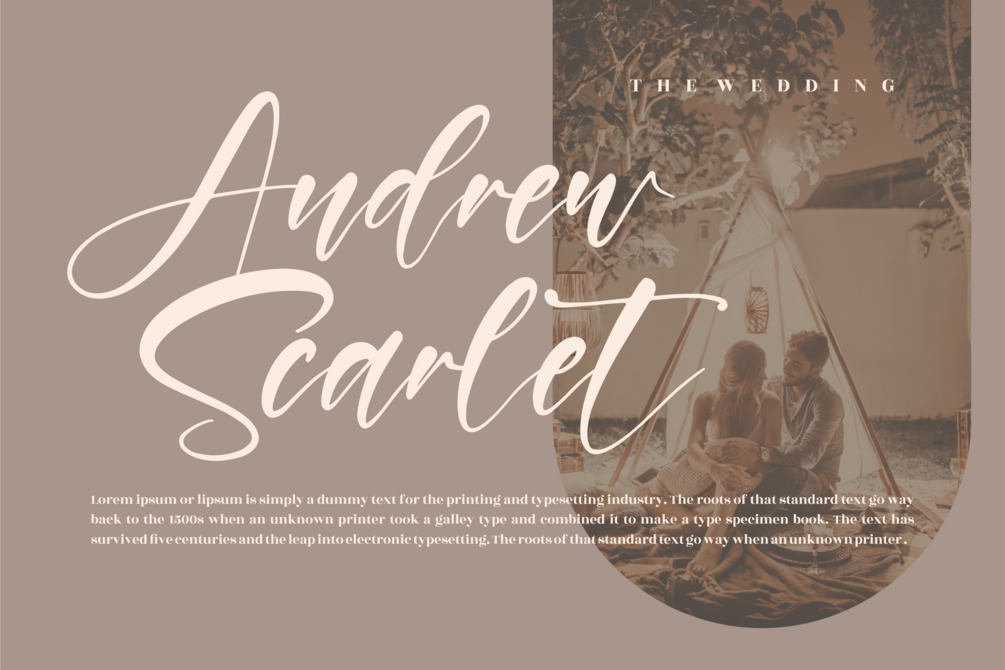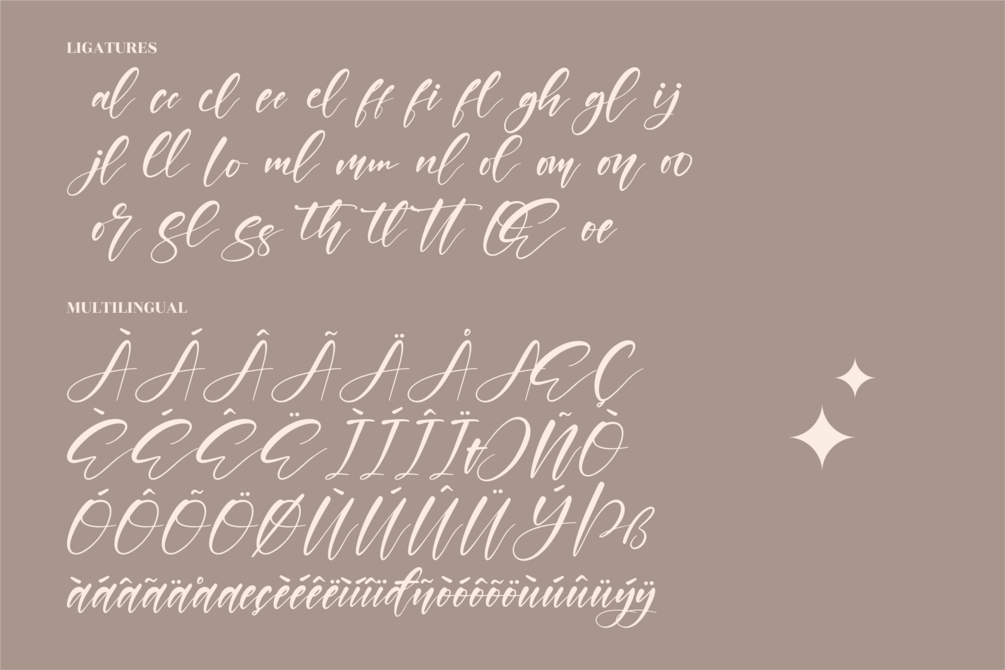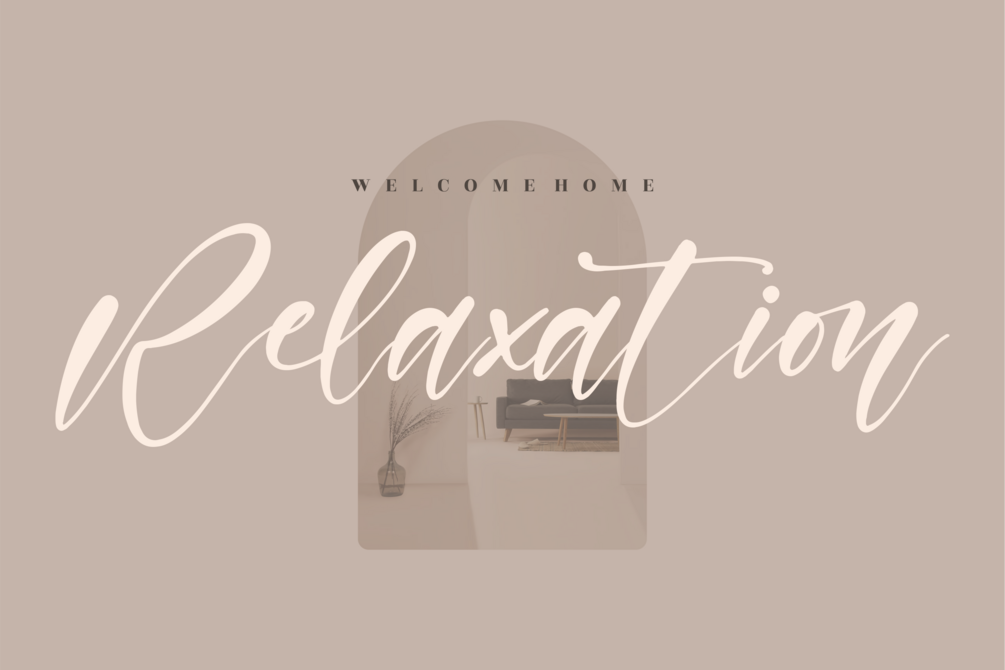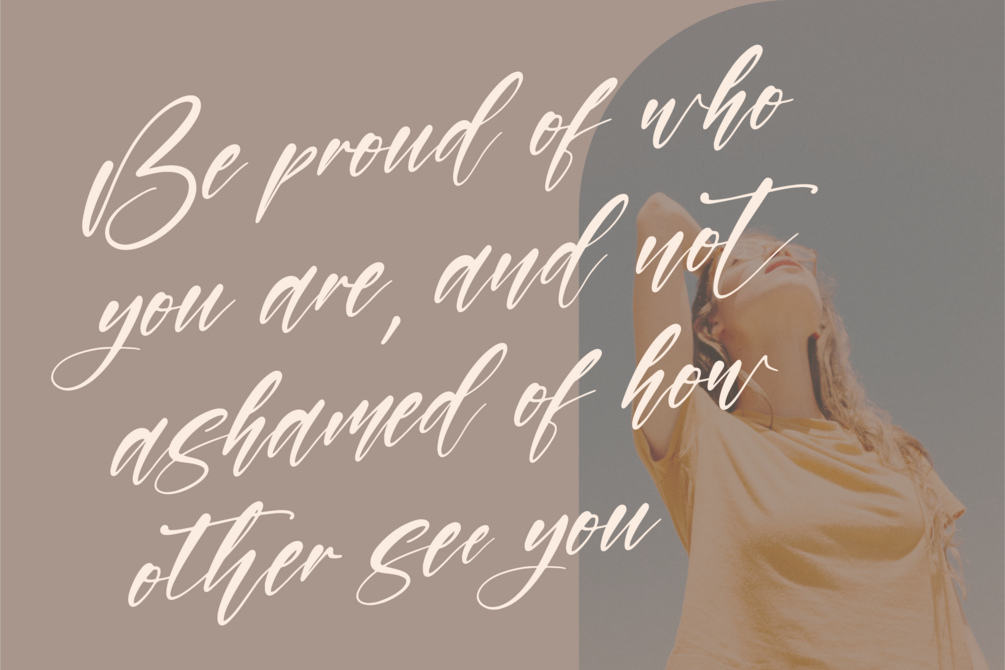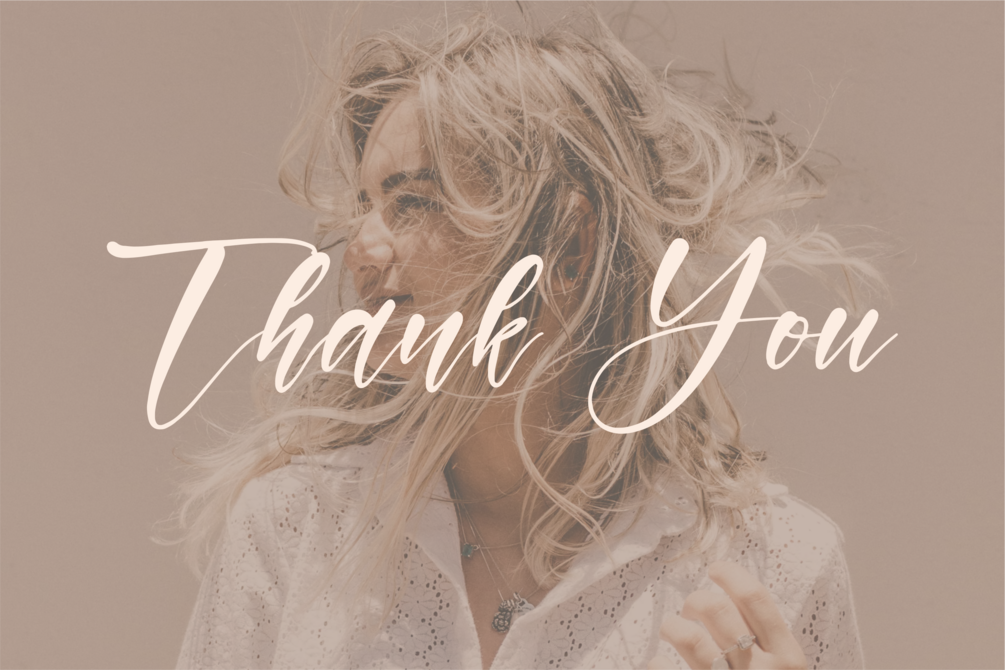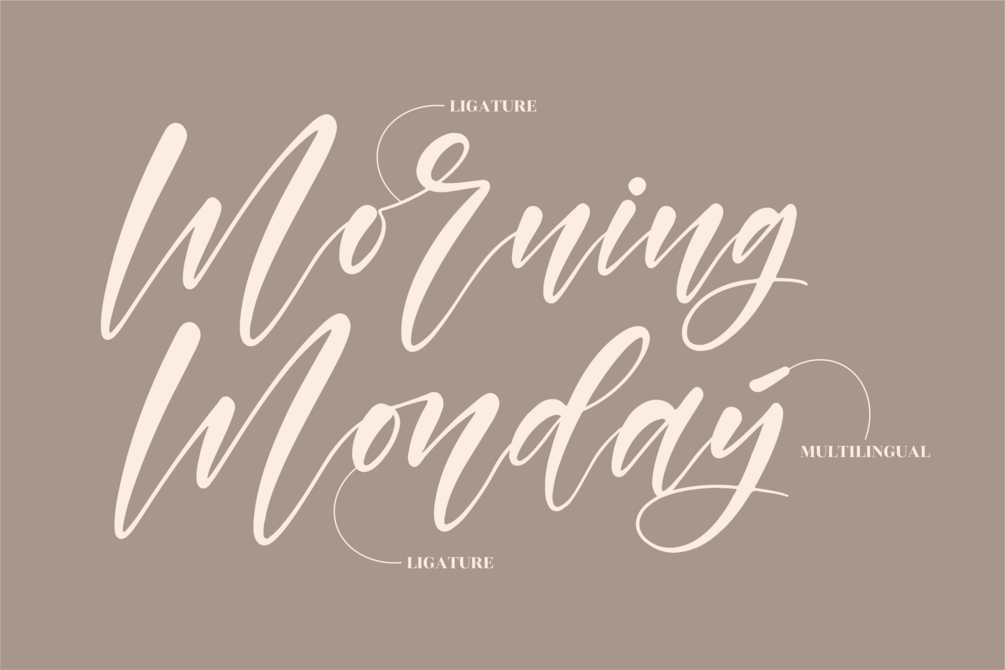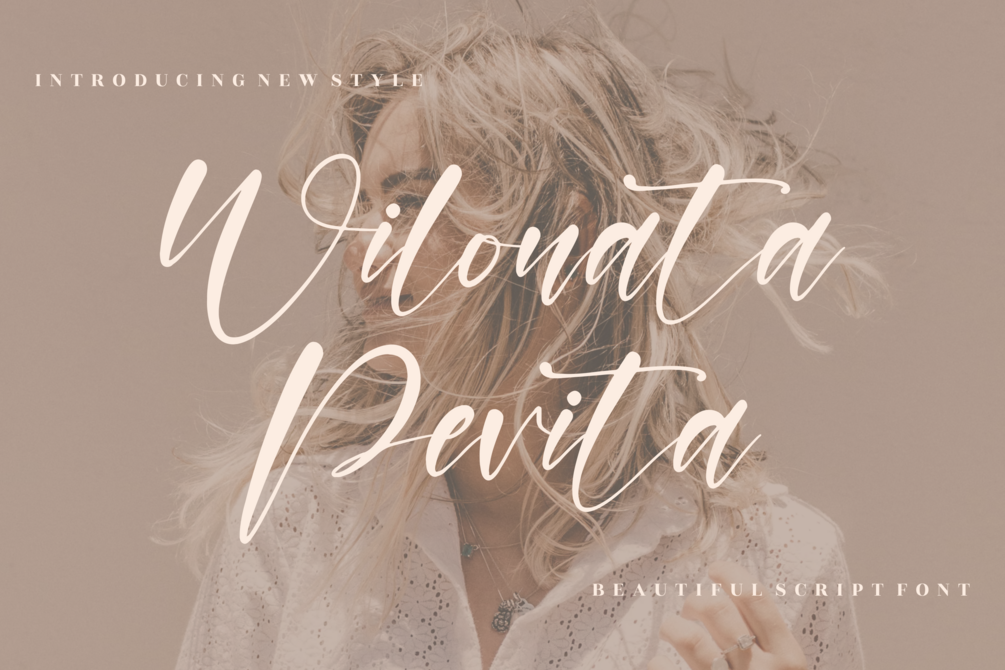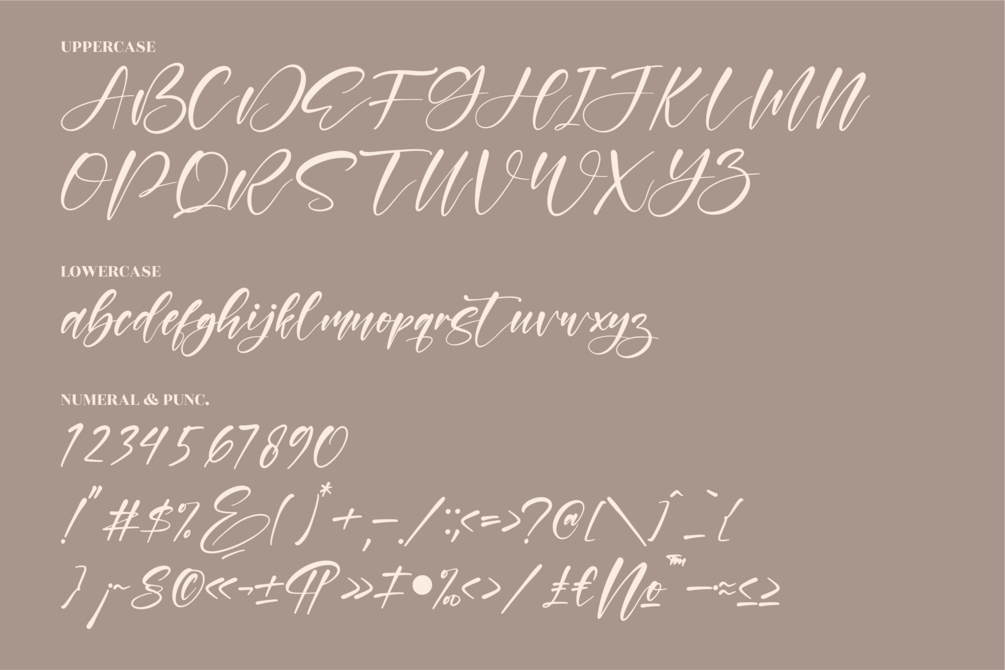
Wilonata Pevita - Beautiful Script Font
Wilonata Pevita - Beautiful Script Font, from Letternity Studio, is a beautiful script font, suitable for any projects such as: logos, branding projects, homeware designs, product packaging, mugs, quotes, posters, shopping bags, t-shirts, book covers, name card, invitation cards, greeting cards, label, photography, watermark, special events, and all your other lovely projects that need a beautiful script taste.
Ligature, Alternate & Swashes
Fonts include support for 65 languages